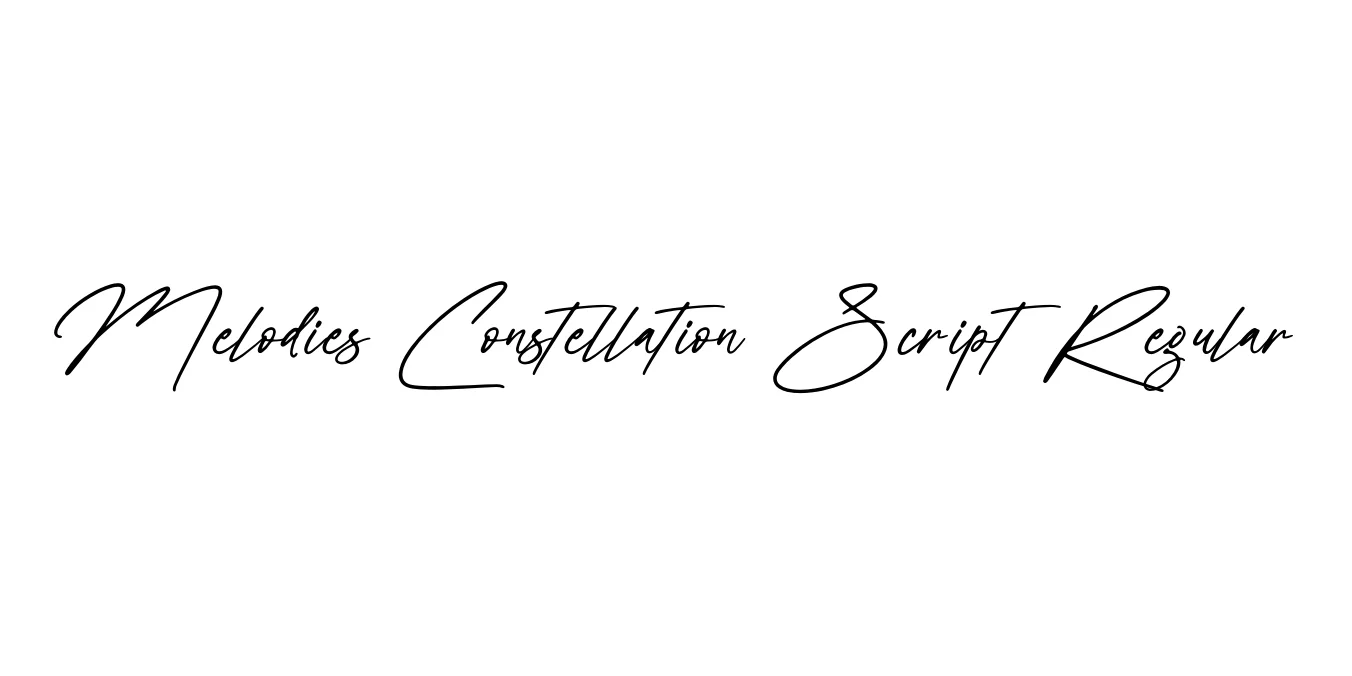
Melodies Constellation Script Regular
Melodies Constellation Script Regular is an exquisitely designed typeface that captures the fluid grace of modern calligraphy combined with a celestial, ethereal aesthetic. This font is characterized by its elegant sweeping swashes and delicate ligatures, which create a harmonious and rhythmic flow across any layout. It was specifically crafted to bring a touch of luxury and personal charm to creative projects, making it a standout choice for those seeking a sophisticated hand-lettered look.
Technically proficient, the font includes a comprehensive set of characters, including uppercase, lowercase, numerals, and punctuation, often accompanied by OpenType features such as stylistic alternates. This versatility allows designers to customize text for maximum impact, whether used in digital headers or high-quality print production. Melodies Constellation Script Regular is particularly effective for high-end branding, where its unique personality helps establish a memorable and upscale visual identity.
Melodies Constellation Script Regular Best Uses
Perfect for invitations, save-the-dates, and place cards that require a romantic touch.
Ideal for beauty, fashion, and lifestyle brands aiming for a premium, feminine aesthetic.
Enhances quotes and promotional posts with its stylish and eye-catching script style.
Excellent for magazine headers, book covers, and personal portfolios.